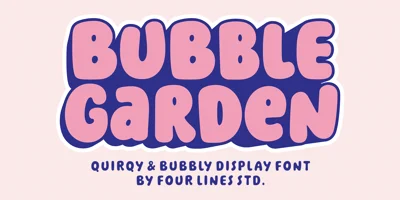
Bubble Garden Font
Bubble Garden Font is perfect for children's book covers, toy packaging, candy branding, birthday party invitations, playground signage, educational materials, daycare centers, baby products, cartoon graphics, summer camp materials, ice cream parlor menus, and any project that requires playful, whimsical typography with cheerful appeal.
What makes Bubble Garden Font exciting is its delightful combination of rounded, bubble-like letterforms that evoke joy and innocence. This charming typeface captures the essence of childhood wonder with its soft, inflated characters that seem to float like soap bubbles in a magical garden. The font's organic curves and friendly appearance make it an exceptional choice for brands targeting families and children, creating an instant connection with audiences seeking fun, safe, and approachable design solutions.
Bubble Garden Font family includes various decorative elements and stylistic alternatives, providing designers with creative options to enhance the playful nature of their projects. The font family typically offers multiple bubble sizes, shadow effects, and ornamental flourishes that complement the garden theme and allow for whimsical typographic compositions.
Whether you're designing for children's products, family entertainment, or educational services, Bubble Garden Font delivers the warmth and visual charm that kid-friendly design projects require. Its approachable nature makes it ideal for preschools, pediatric clinics, family restaurants, and entertainment venues catering to young audiences.
The font's high readability and joyful character ensure effective communication while maintaining its playful spirit. With Bubble Garden Font, your designs will bloom with happiness and create memorable experiences for children and families.